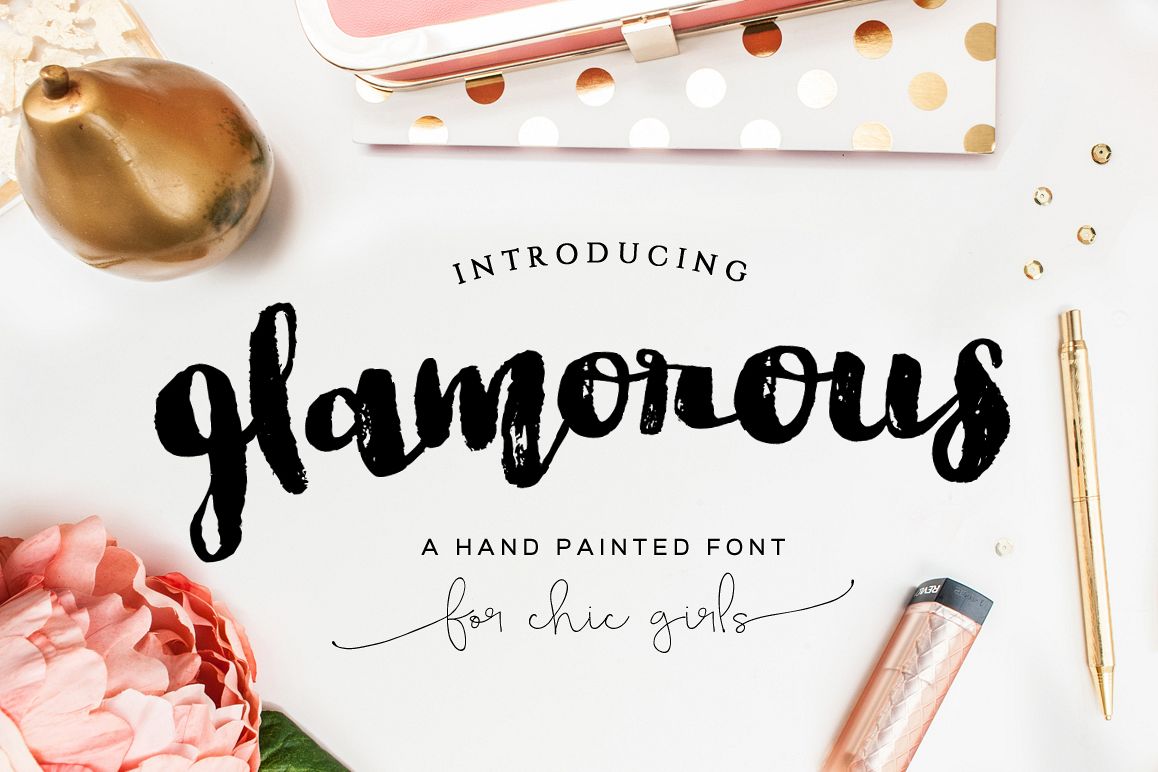
Glamorous Brush Font
Glamorous-Regular
Need some glamour? Then this font is for you! An exquisite bold hand painted brush font perfect for any ocassion. Carefully designed to mantain their real brush marks. And looks super pretty with watercolor or foil textures!
• Uppercase and lowercase, numbers, puntuaction and currency.
• Supports international characters.